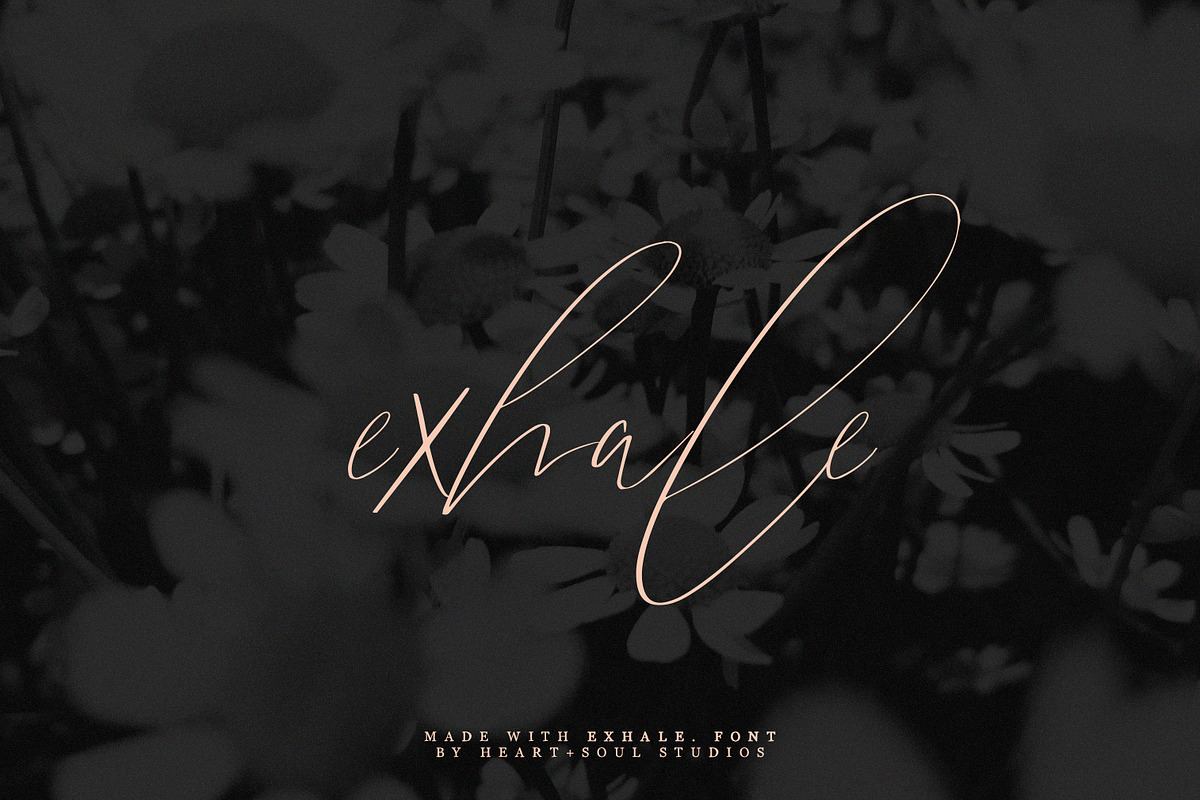
exhale. | calligraphy script font Free Download
exhale. | Calligraphy Script Font Free Download is an elegant and flowing script typeface that captures the beauty and fluidity of handwritten calligraphy. With its smooth curves and graceful design, Exhale is perfect for projects such as wedding invitations, logos, social media graphics, branding, and any design that requires a personal and artistic touch.
exhale. | Calligraphy Script Font Free Download adds sophistication and charm to your typography, making it ideal for creating refined, stylish designs. Whether you’re working on elegant branding, personalized stationery, or creative social media content, Exhale brings a sense of luxury and individuality to your work. Download it today and elevate your design projects with the graceful beauty of Exhale!